45 Creative Handwritten Fonts For Free Download
The creative juices of web designers never stop flowing and it’s their creative bent of mind that forces them to come up with something new and unique. Logo and web designing are the creative areas that give the utmost importance to the fonts. In shaping up the entire vision of the web designer, fonts play the major role
We have to admit that there are infinite fonts floating over the net. Digital, cool, gothic, abstract; you name it and you have plenty of choices in front of you. Put the keyword in the search engine and you find the whole lot of different type of fonts. In-fact, there is a big ‘font pool’ to pick and choose from. Problem arises when you have to choose one for yourself.
From an array of cool fonts, handwritten fonts haven’t lost their charm, their demand is increasing for the reason that these help in giving informal, creative and personal touch to any web or logo design. Undoubtedly, the list of creative handwritten fonts available is endless. There are many stunning fonts and most of them are not cheap. What if you get the creative handwritten fonts for free that too without compromising with style and creativity?
To save your time and money, I have compiled a list of 45 free downloadable handwritten fonts. Give personal touch to your designs by choosing the creative handwritten font and create a relaxed atmosphere with simplicity. Choose for yourself, test your creativity, do some experiment, alter them to suit your designs and spice up your designs.
1. Jellyka - Estrya's Handwriting
2. Nymph’s Handwriting Font
3. Jellyka Endless Voyage
4. Celeste Hand
5. Rickman Script 6. Unstable 7. Dennis8. Tusj
9. Note this! 10. The Quiet Scream 11. Ginga12. Alliewriting
13.Moody Boys 14. Typeface Antitime
15. Scribulous Scrawlin 16. Chocolate Muffin 17. Love is a verb18. HBFONT XD
24. Christopher Hand
25. Beer Note 26. Lawson Handwriting
27. Krazy Nights
28. Kiddy Writing29. Denne’s Old Handwriting
30. Waste Of Time31. Scriptina
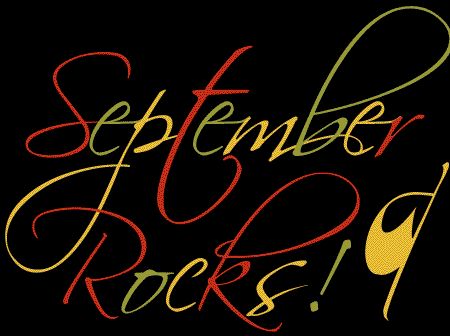
32. Southpaw comic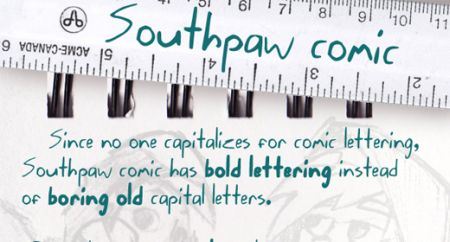
33. Black Roses 34. Font – Fluna’s Handwriting 35. PopStar Autograph Font
36. le Grand Saut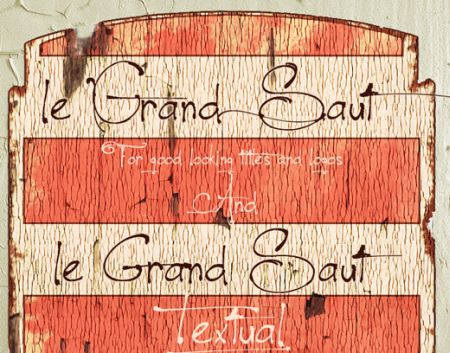
37. Two Turtle Doves
38. A NONA-mous Font 39. NOxWAYDownload Free Font
40. Teemo 41. Eltops
42. Denne Etude 43. Crimson Vermillion 44. Larala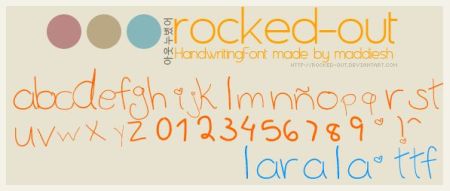